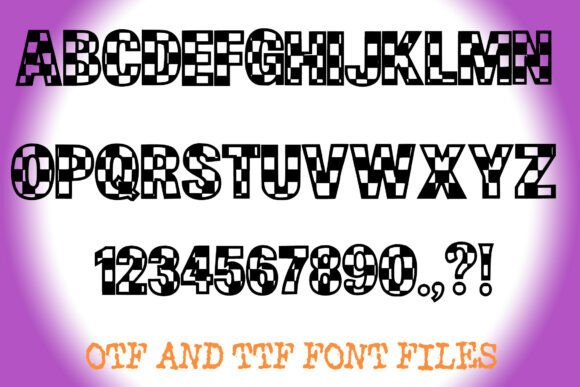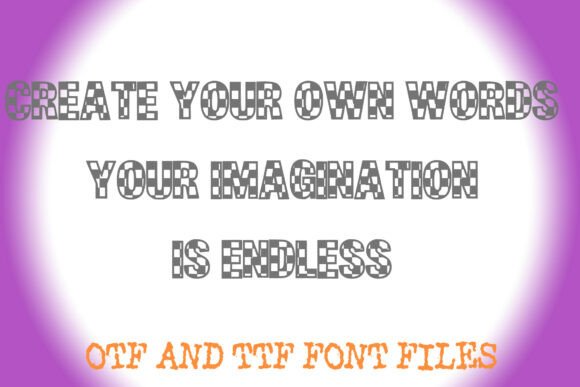
Introducing Chequered Font: The Ultimate Display Typeface for Bold Designs
Are you looking for a font that can add a touch of playfulness and visual impact to your designs? Look no further than Chequered Font, a bold and attention-grabbing display typeface that features a unique checkered pattern embedded within each character. With its high-contrast black-and-white design, Chequered Font mimics the aesthetic of classic racing flags or chessboards, making it ideal for a wide range of creative projects.
What is Chequered Font?
Chequered Font is a carefully crafted display typeface that boasts a distinctive checkered pattern, comprising alternating black and white squares. This striking design element is seamlessly integrated into each character, giving the font its unique and recognizable look. The high-contrast color scheme of Chequered Font creates a visually appealing effect, making it perfect for designs that require a bold and eye-catching approach.
Characteristics of Chequered Font
So, what makes Chequered Font so special? Here are some of its key characteristics:
- Bold and attention-grabbing: Chequered Font is designed to make a statement, with a bold and attention-grabbing appearance that’s sure to turn heads.
- Unique checkered pattern: The font’s distinctive checkered pattern adds a touch of playfulness and visual interest to any design.
- High-contrast black-and-white design: The font’s high-contrast color scheme creates a striking visual effect, making it perfect for designs that require a bold approach.
- Versatile: Chequered Font can be used for a wide range of creative projects, from posters and sports themes to logos and branding materials.
Best Use Cases for Chequered Font
So, what are the best use cases for Chequered Font? Here are some ideas to get you started:
- Posters: Chequered Font is perfect for creating eye-catching posters for events, promotions, or advertising campaigns.
- Sports themes: The font’s sporty, racing-inspired design makes it ideal for sports-themed designs, such as team logos, jerseys, or sports equipment.
- Racing designs: Chequered Font is a natural fit for racing designs, including car decals, racing stripes, or checkered flags.
- Headlines: The font’s bold, attention-grabbing design makes it perfect for headlines, titles, or captions that require a strong visual impact.
- Logos: Chequered Font can be used to create bold, memorable logos for businesses, products, or services.
- Children’s books: The font’s playful, whimsical design makes it suitable for children’s books, comics, or educational materials.
- Bold branding materials: Chequered Font is perfect for creating bold, eye-catching branding materials, such as business cards, brochures, or packaging.
Why Choose Chequered Font?
So, why should you choose Chequered Font for your next design project? Here are just a few reasons:
- Unique and recognizable: Chequered Font’s distinctive design makes it instantly recognizable and memorable.
- Playful and energetic: The font’s playful, whimsical design adds a touch of energy and playfulness to any design.
- Versatile: Chequered Font can be used for a wide range of creative projects, from posters and sports themes to logos and branding materials.
- Easy to read: Despite its bold, attention-grabbing design, Chequered Font is surprisingly easy to read, making it perfect for headlines, titles, or captions.
In conclusion, Chequered Font is a bold, attention-grabbing display typeface that’s perfect for designers and crafters looking to add a touch of playfulness and visual impact to their designs. With its unique checkered pattern, high-contrast black-and-white design, and versatile use cases, Chequered Font is an excellent choice for a wide range of creative projects. Whether you’re designing posters, sports themes, logos, or branding materials, Chequered Font is sure to make a statement and leave a lasting impression.